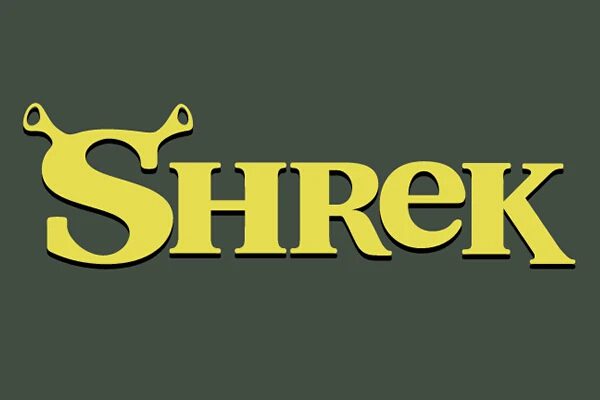
Here we present to you the fun and playful Shrek font! The lettering that was used in the original Shrek animated movie is a custom designed wordmark. There is however a free font alternative that you can used which is simply called Shrek. It was created by an independent font author by the name of Kevin Wilson. This typeface comes in a ttf format, and is available to use in all personal projects without restriction.(for all other commercial projects you must purchase a font license).
About the Shrek typeface